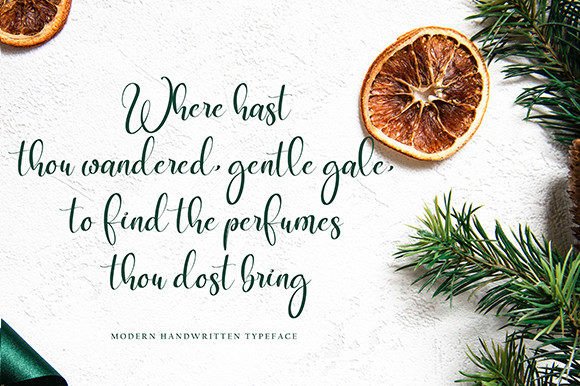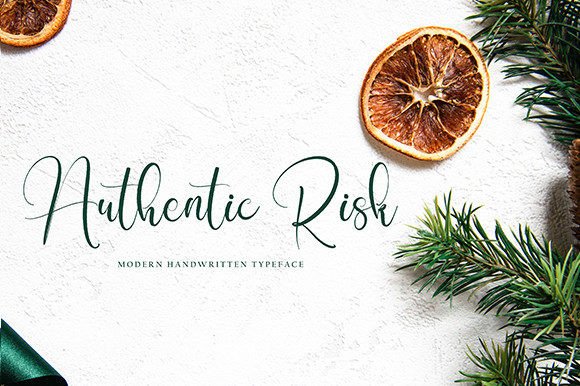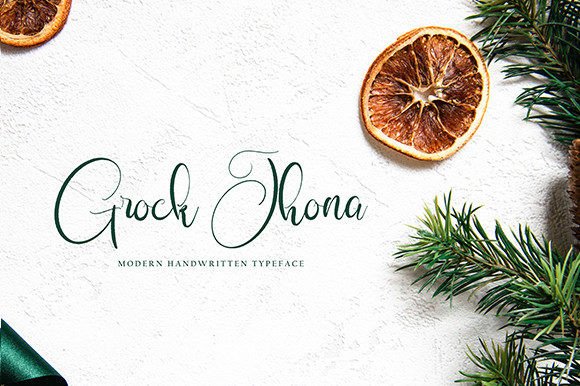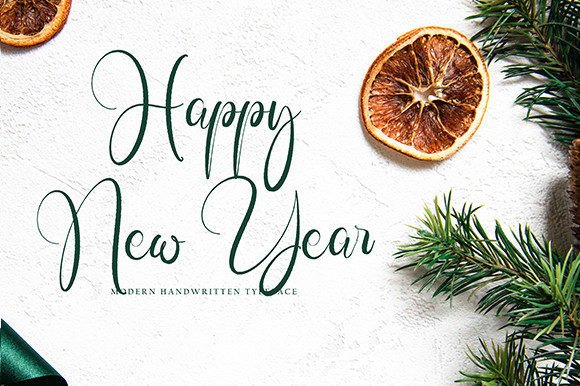
Introducing Egertan Font: The Elegant Touch for Your Designs
Are you looking for a font that exudes elegance and sophistication? Look no further than Egertan Font, a beautiful, flowing handwritten font that is sure to capture your heart. With its incredibly distinct and timeless style, Egertan Font is perfect for designers and crafters who want to add a touch of refinement to their projects.
What is Egertan Font?
Egertan Font is a carefully crafted handwritten font that boasts an elegant touch, making it ideal for a wide range of design applications. Whether you’re working on a logo, branding materials, social media graphics, or even a website, Egertan Font is sure to impress. Its unique and flowing style sets it apart from other fonts, giving your designs a distinctive look that will leave a lasting impression.
Key Features of Egertan Font
- Elegant and Refined: Egertan Font features an elegant and refined design that is perfect for projects that require a touch of sophistication.
- Flowing Handwritten Style: The font’s flowing handwritten style gives it a unique and personal touch, making it perfect for designs that require a human feel.
- Distinct and Timeless: Egertan Font’s incredibly distinct and timeless style ensures that your designs will stand the test of time and remain relevant for years to come.
- Versatile: Egertan Font is versatile and can be used for a wide range of design applications, from logos and branding materials to social media graphics and websites.
Why Choose Egertan Font?
There are many reasons why designers and crafters choose Egertan Font for their projects. Here are just a few:
- Unique Style: Egertan Font’s unique style sets it apart from other fonts, giving your designs a distinctive look that will help you stand out from the crowd.
- High-Quality: Egertan Font is a high-quality font that is designed to deliver exceptional results, ensuring that your designs look professional and polished.
Tips and Tricks for Getting the Most Out of Egertan Font
Here are some tips and tricks for getting the most out of Egertan Font:
- Experiment with Different Sizes: Experiment with different sizes to find the perfect fit for your design.
- Pair with Other Fonts: Pair Egertan Font with other fonts to create a unique and interesting look.
- Use in Combination with Images: Use Egertan Font in combination with images to add an extra layer of depth and interest to your design.
Egertan Font is a beautiful, flowing handwritten font that is perfect for designers and crafters who want to add a touch of elegance and sophistication to their projects. With its incredibly distinct and timeless style, Egertan Font is sure to capture your heart and help you create spectacular designs. Whether you’re working on a logo, branding materials, social media graphics, or even a website, Egertan Font is the perfect choice.